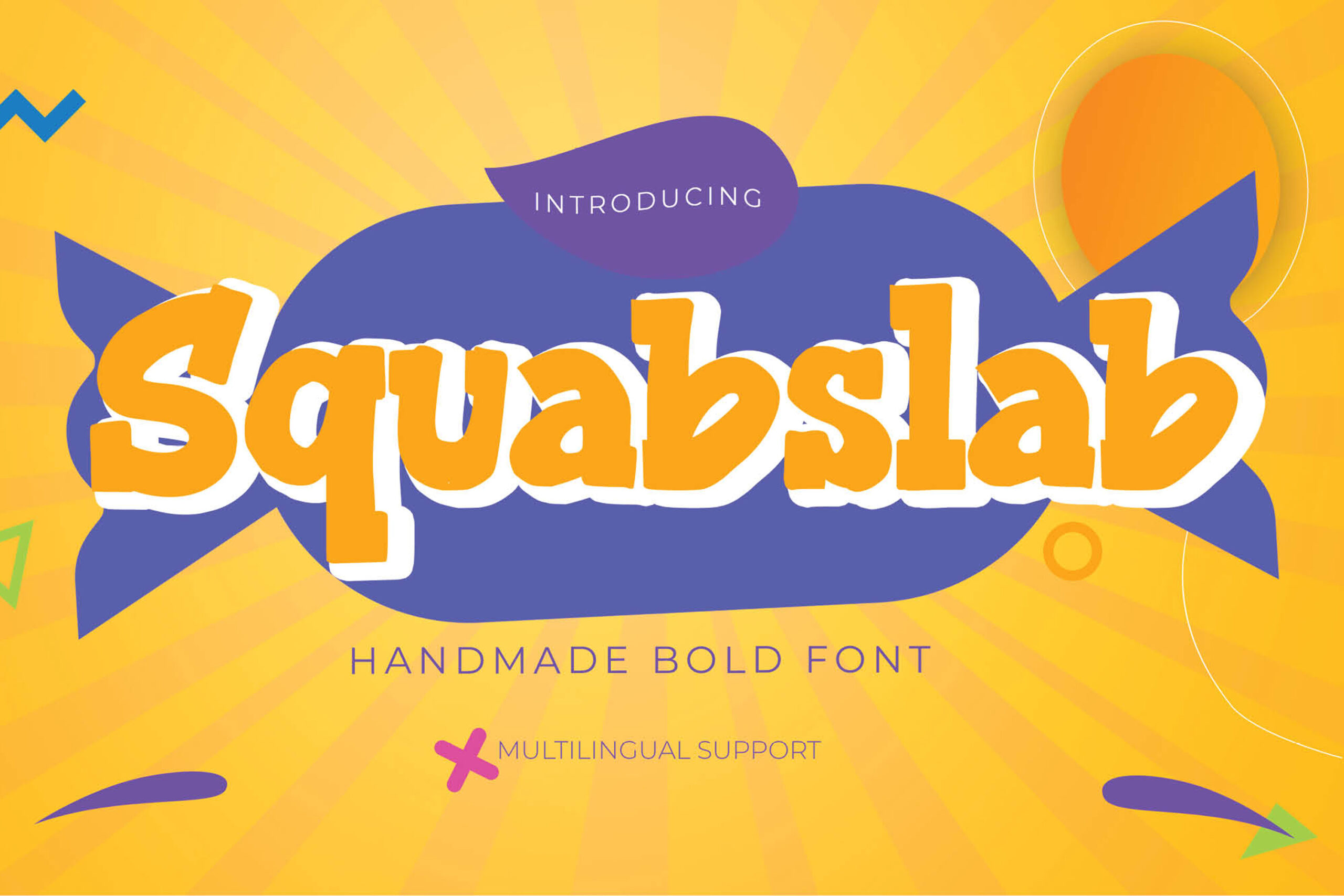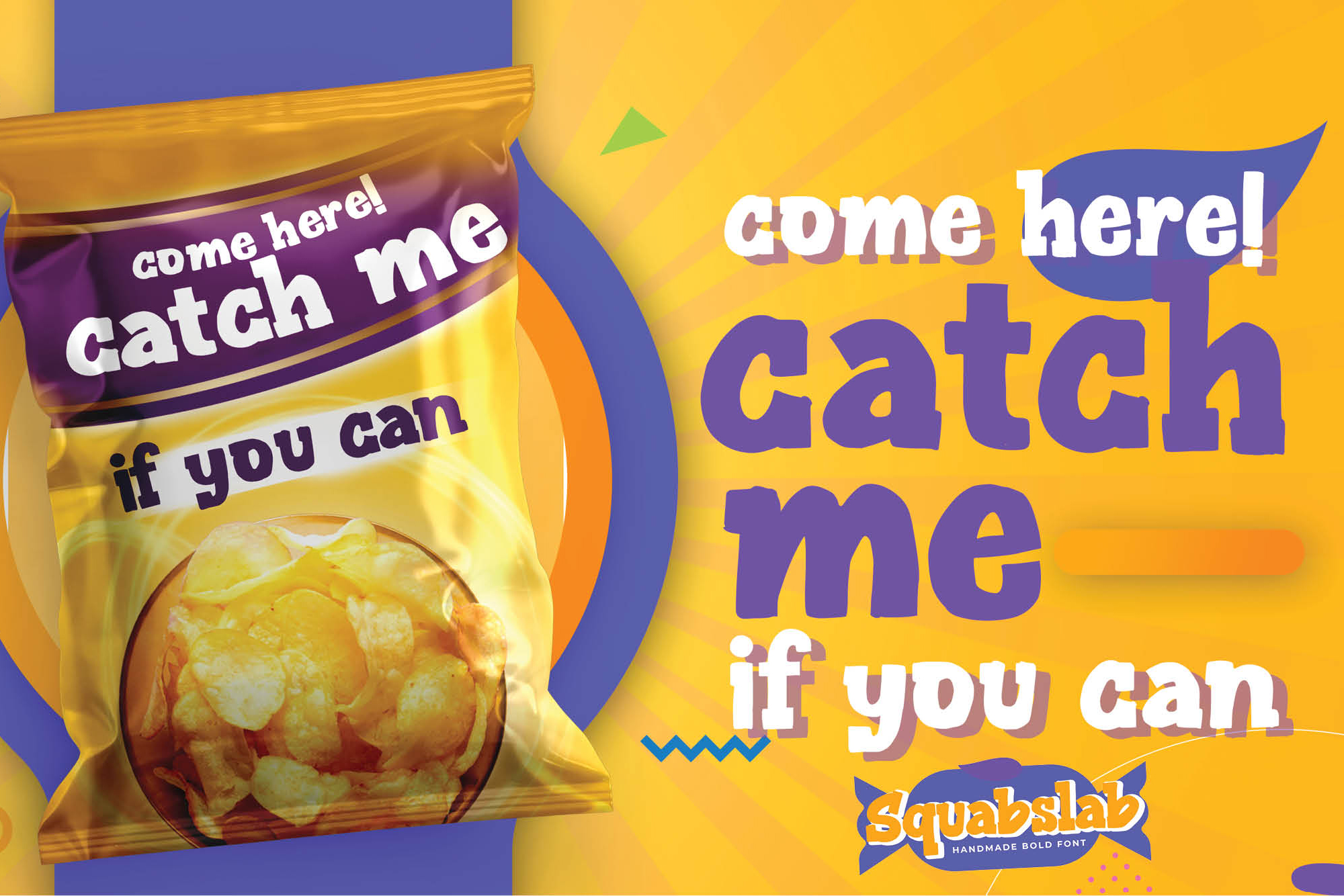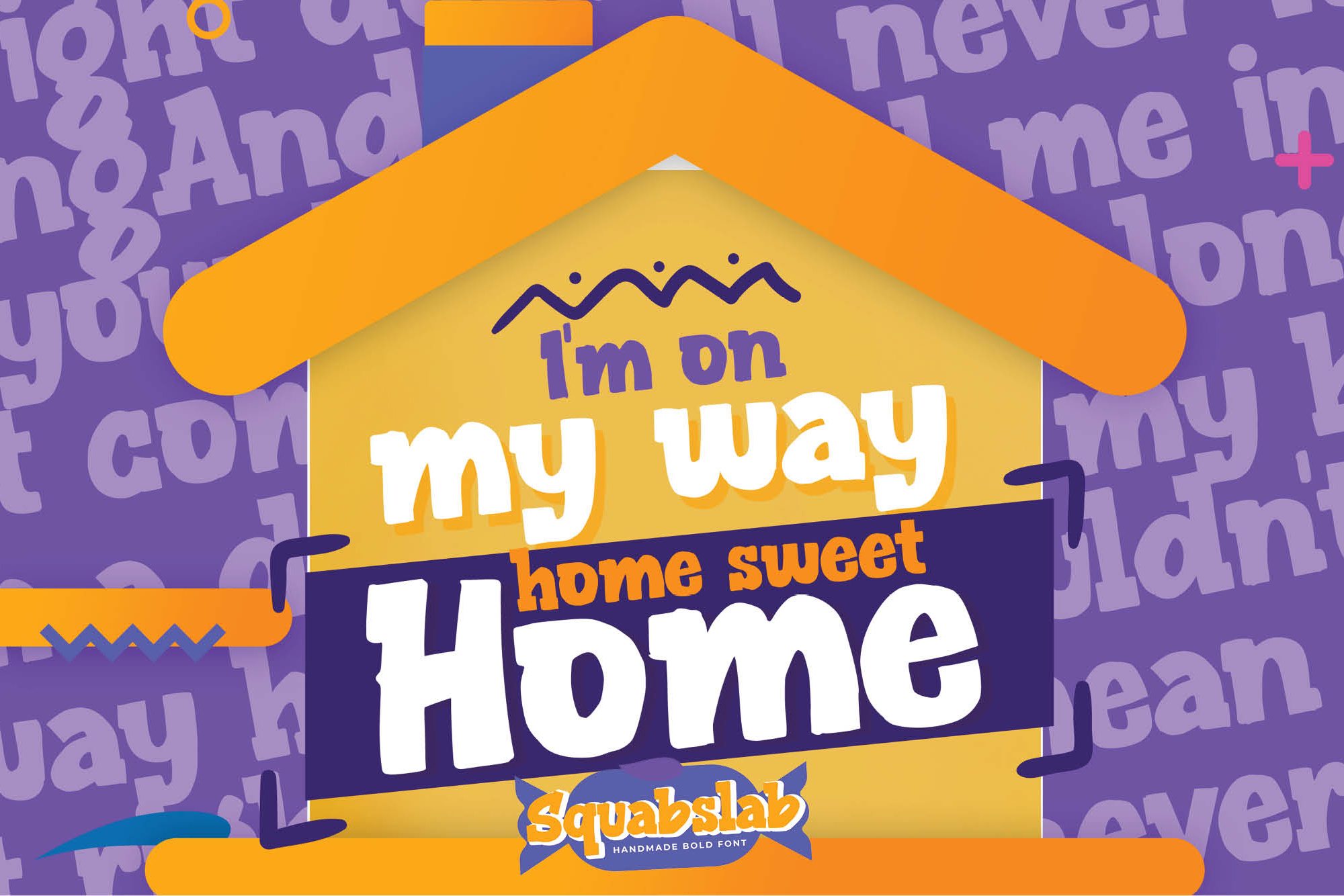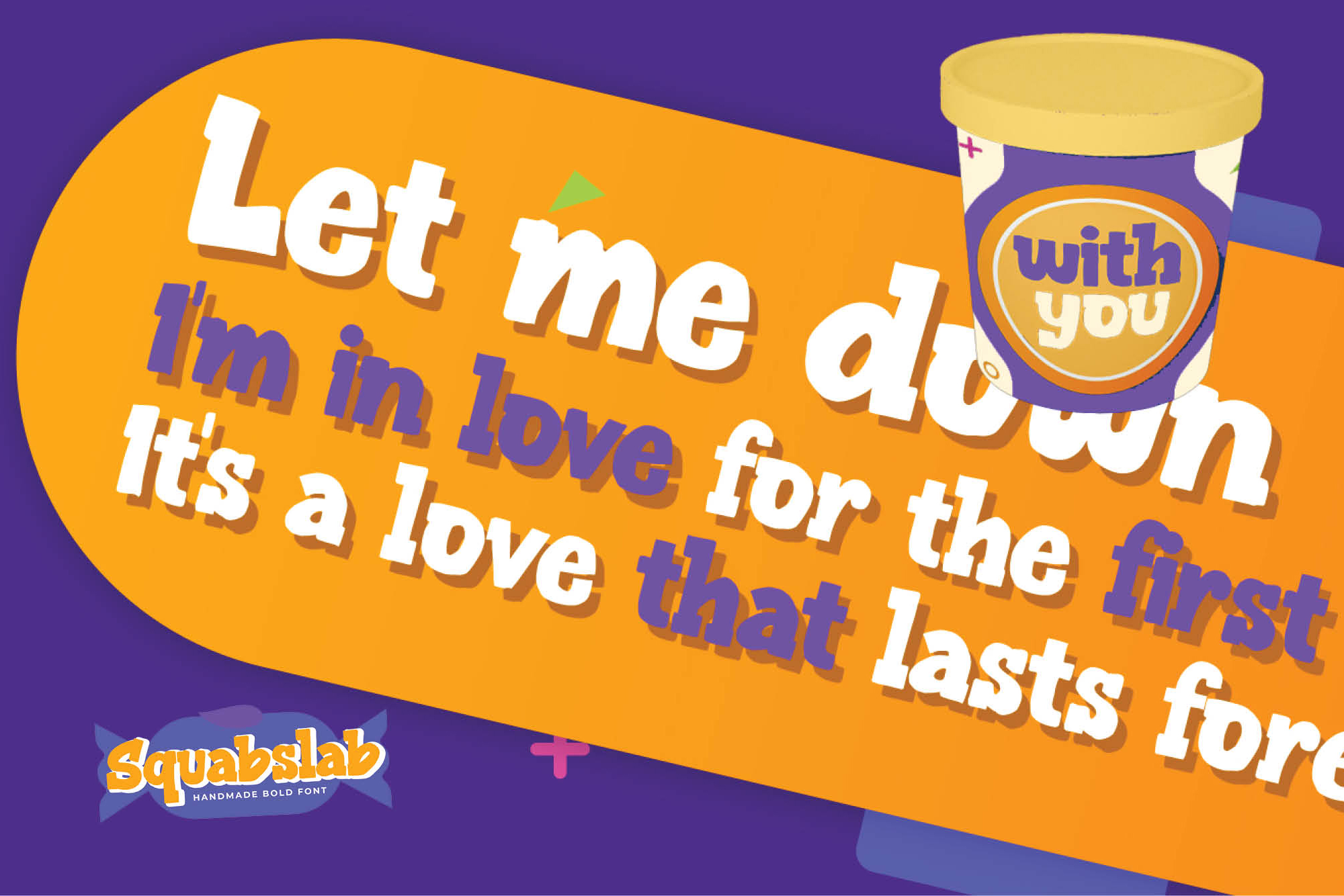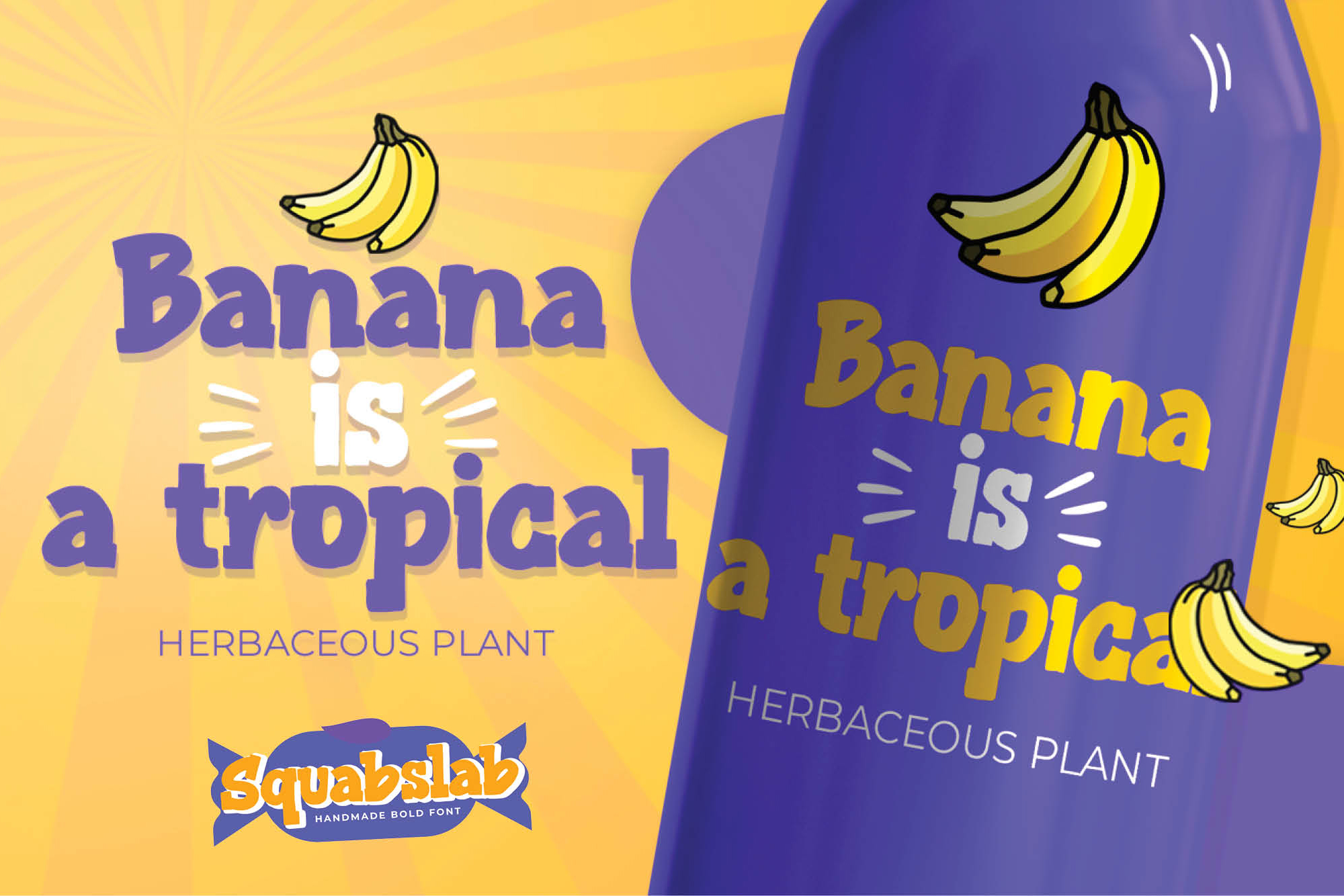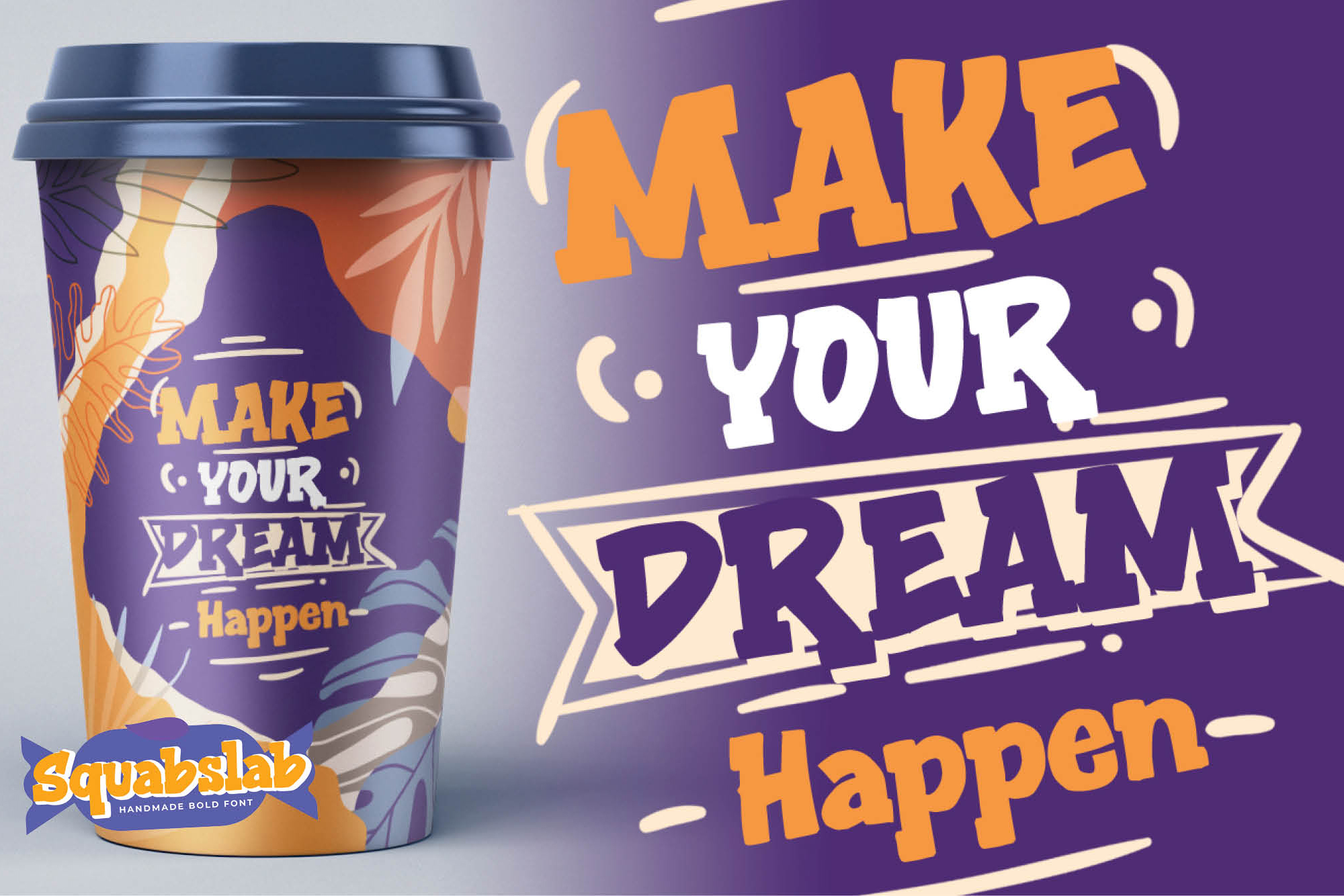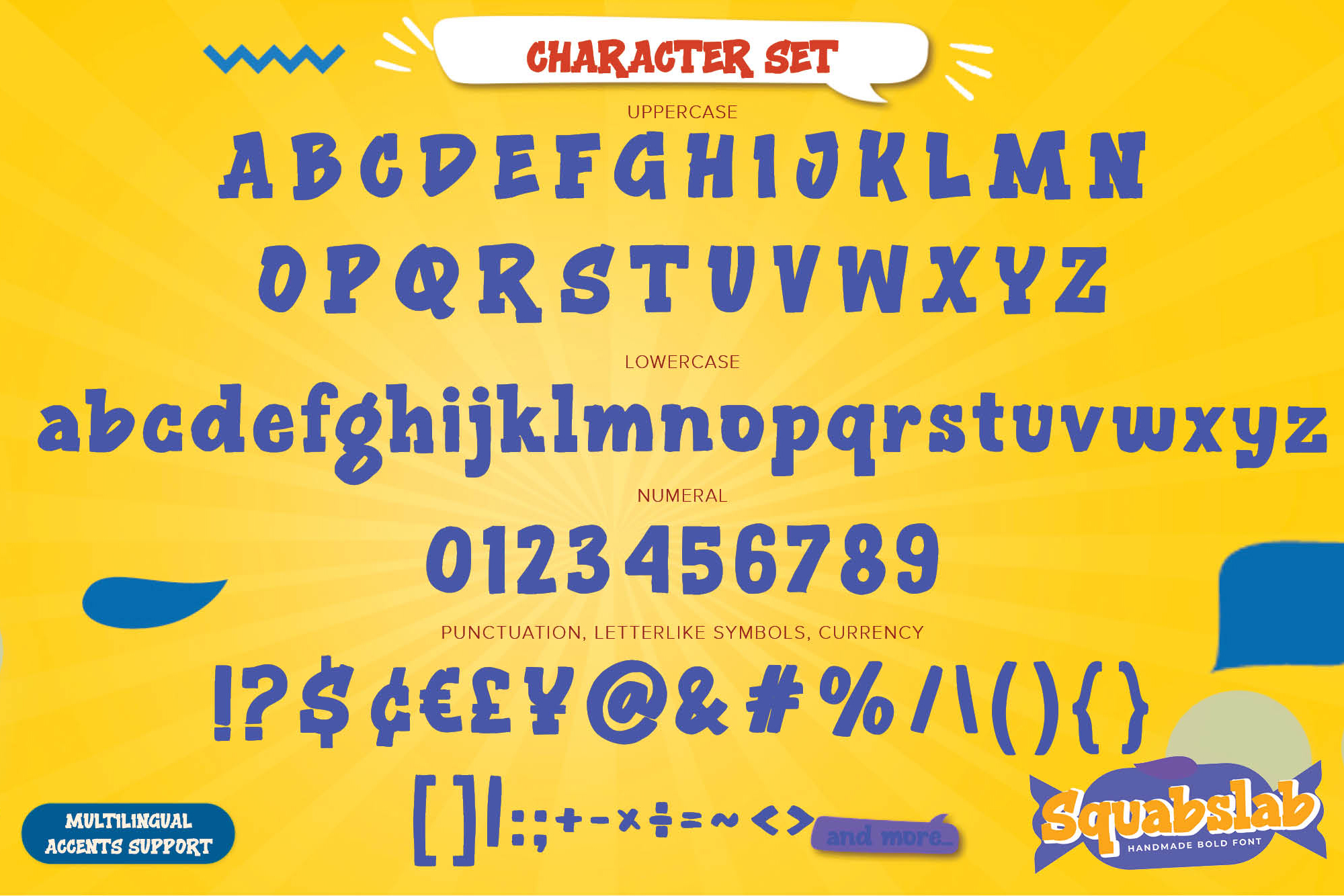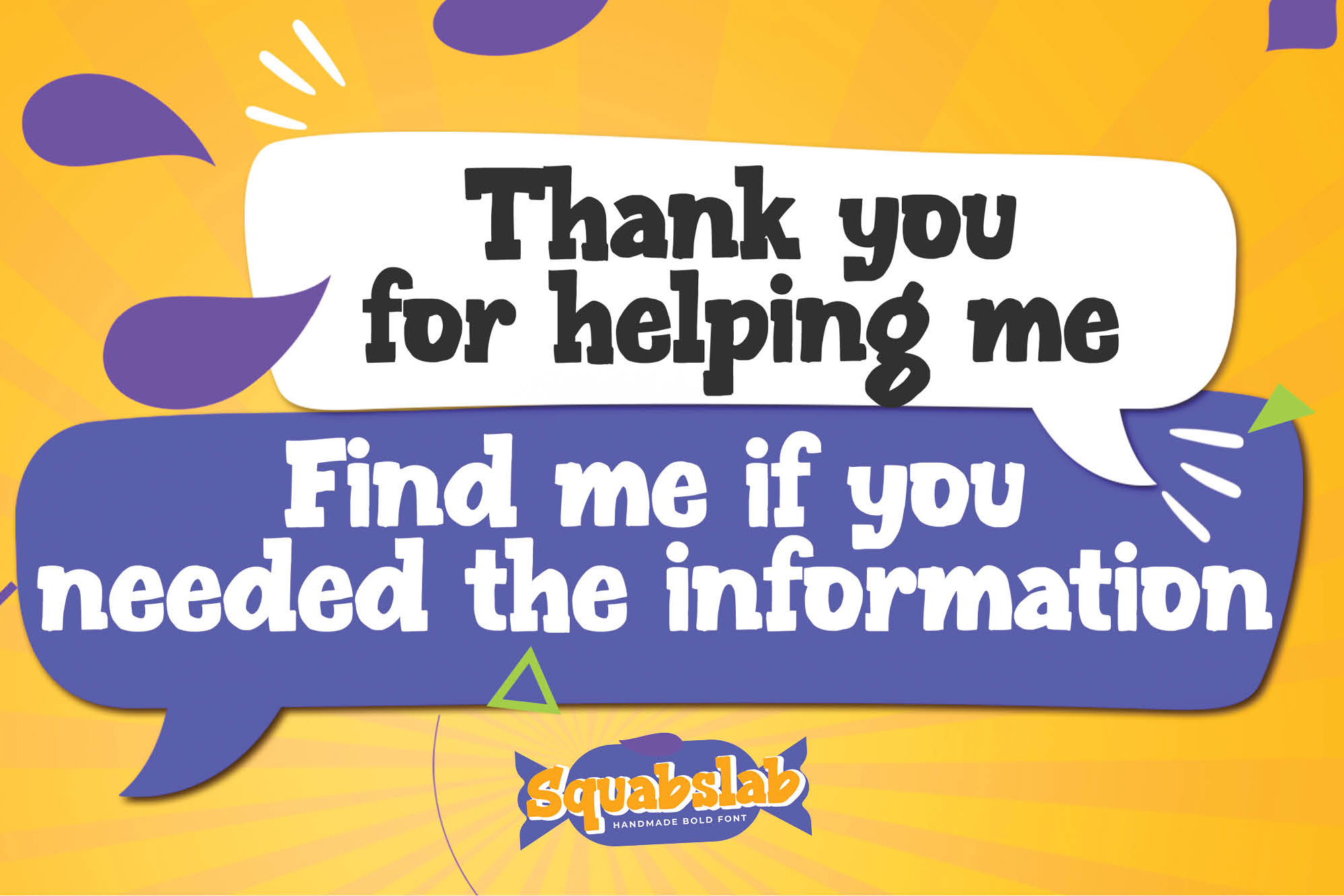
Squabslab – Handmade Bold Serif Font that will make your designs look modern, unique and fun. It’s perfect for labels, quotes, posters, DIY projects, branding, packaging, greeting cards, websites, photography overlays, signs, window art, scrapbooking, tags and so much more!
Squabslab is Inspired by Logo style and combination with Unique Craft style. that will fulfill your design needs for quotes,sporty theme, logotype, wordmark, etc. This has many opentype features and support multi language.